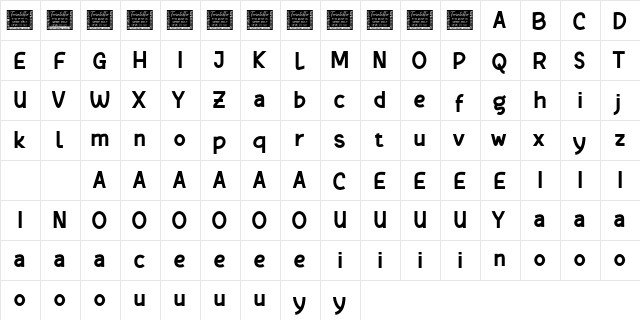
Big Dreams Personal Use
Design Context for Big Dreams Typeface
Big Dreams is a composed and adaptable typeface that performs quietly and consistently across a wide range of design contexts.
Pro Tip: Pair Big Dreams with a font of contrasting weight or personality to build a more expressive typographic hierarchy.